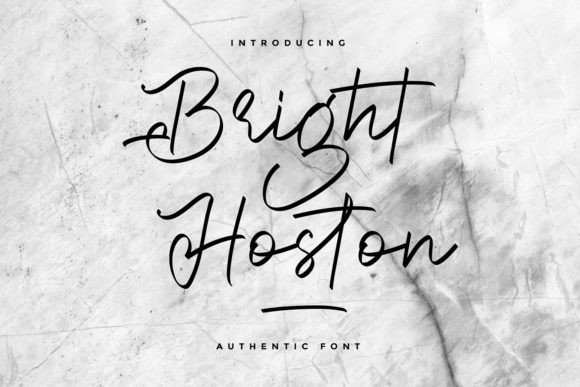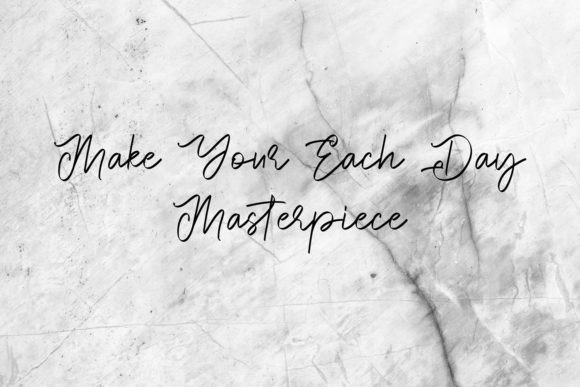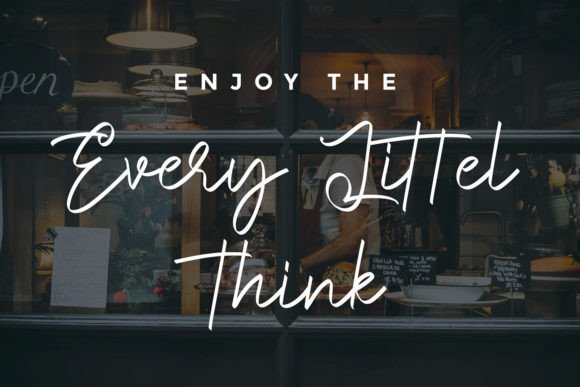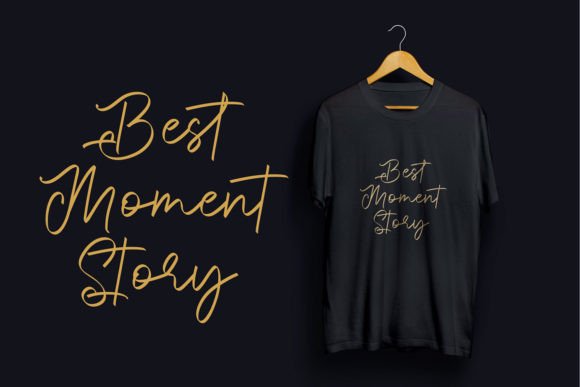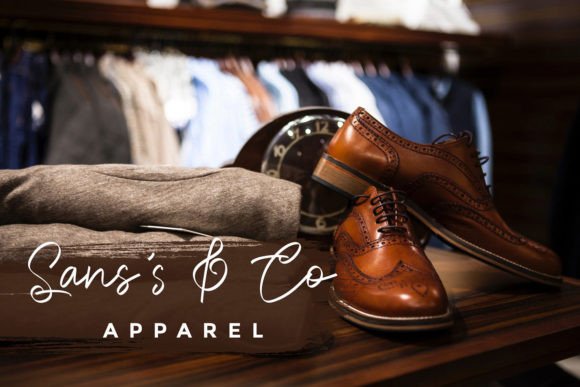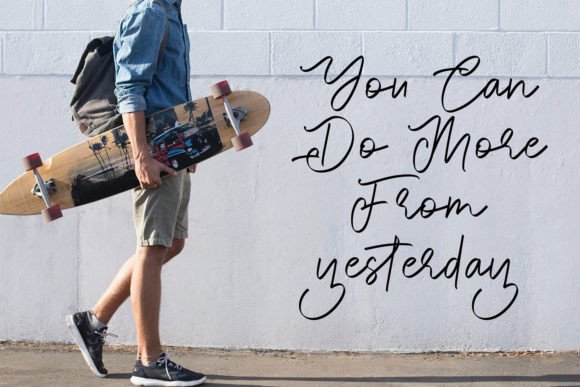
Where Creativity Meets Elegance
There’s nothing quite like the rush of inspiration that hits when you’re brainstorming a new design project. The ideas start flowing, and your imagination runs wild. You see it all – the colors, the textures, the typography – everything coming together in perfect harmony. And that’s when you know you need the perfect font to bring it all to life. Enter Bright Hoston Font, a beautiful, flowing handwritten font that adds an elegant touch to any project.
Bright Hoston Font is more than just a pretty face – it’s a versatile tool that can elevate your designs to new heights. With its timeless style and distinct flair, it’s the perfect choice for designers looking to add a touch of sophistication to their work. Whether you’re working on a logo, a brochure, or a social media campaign, Bright Hoston Font is sure to make a lasting impression.
Bright Hoston Font Key Features
- Unique Characteristic: The Bright Hoston Font features a unique blend of modern and vintage elements, creating a distinctive and eye-catching visual style.
- Font Weight: The font comes in 5 different weights (Light, Regular, Medium, Bold, and Black), allowing designers to choose the perfect weight for their project.
Bright Hoston Font Review
Overall, I think the Bright Hoston Font has a lot of potential, but it’s not without its flaws. Let’s start with what works well:
- ✨ Unique and modern design: The font has a really distinct look that could add some visual interest to a design.
- ✨ Versatile: The font comes in a range of weights and styles, making it suitable for a variety of design projects.
- ✨ Easy to read: The font is clear and legible, even at smaller sizes.
- ⚠️ Limited language support: The font doesn’t support many languages, which could be a problem for designers working on multilingual projects.
- ⚠️ Some characters may not render correctly: I’ve noticed that some characters, like the “@” symbol, don’t always render correctly in certain applications.
Overall, I think the Bright Hoston Font is a solid choice for designers looking for a modern, versatile font. However, it’s not perfect, and designers should be aware of its limitations before using it in a project.
The Bright Hoston font is ideal for:
- Creating eye-catching headlines and titles.
- Adding a touch of modernity to your designs.
- Designing for social media and online platforms.
Pacifico is a beautiful, elegant font that works well for titles, headings, and body text. It’s ideal for use in branding, packaging, and web design. Pacifico is more refined and sophisticated compared to Bright Hoston Font, which makes it a great choice for luxury brands and high-end designs.
Comparison: Pacifico has a more classic, vintage feel, while Bright Hoston Font has a modern, urban feel.
Great Vibes is a modern script font that’s perfect for adding a touch of sophistication to your designs. It’s ideal for use in branding, advertising, and packaging. Great Vibes is more playful and energetic compared to Bright Hoston Font, which makes it a great choice for fun and lively brands.
Comparison: Great Vibes has a more fluid, handwritten feel, while Bright Hoston Font has a more structured, modern feel.
Lato is a clean and modern sans-serif font that’s perfect for use in body text, titles, and headings. It’s ideal for use in web design, mobile apps, and digital products. Lato is more minimalistic and versatile compared to Bright Hoston Font, which makes it a great choice for modern and tech-savvy brands.